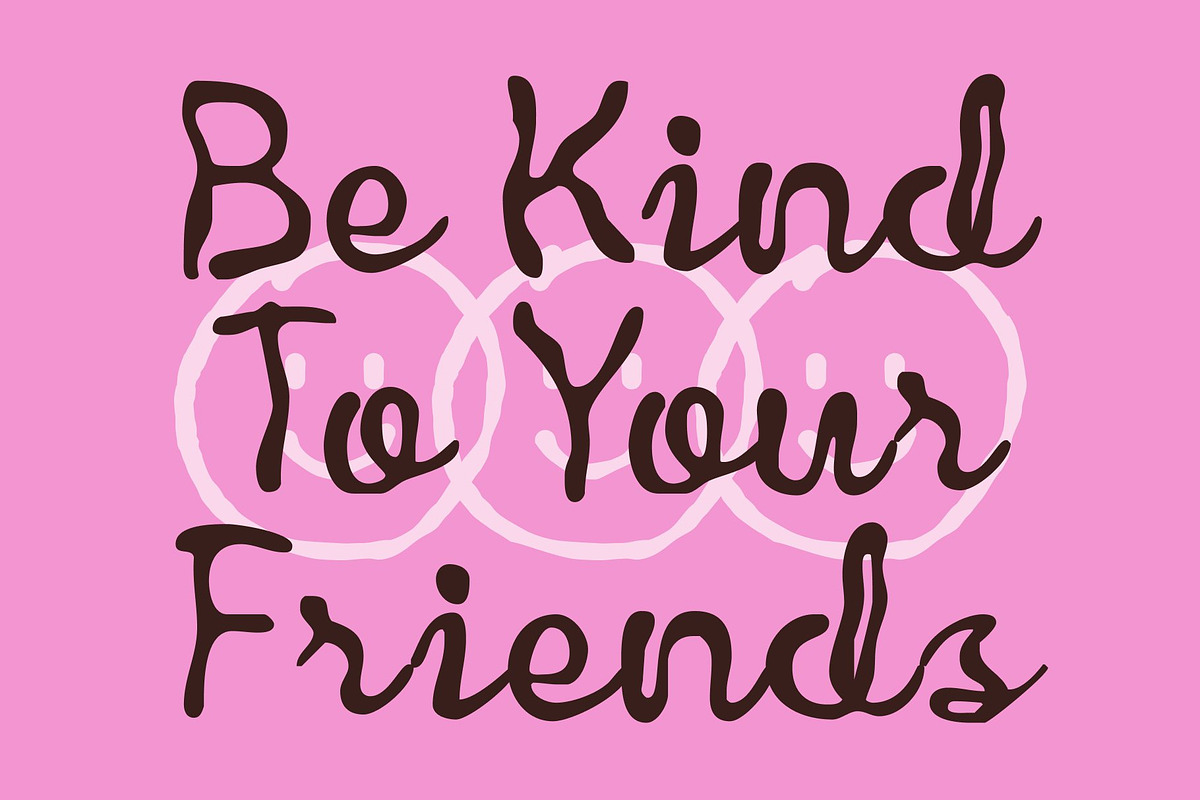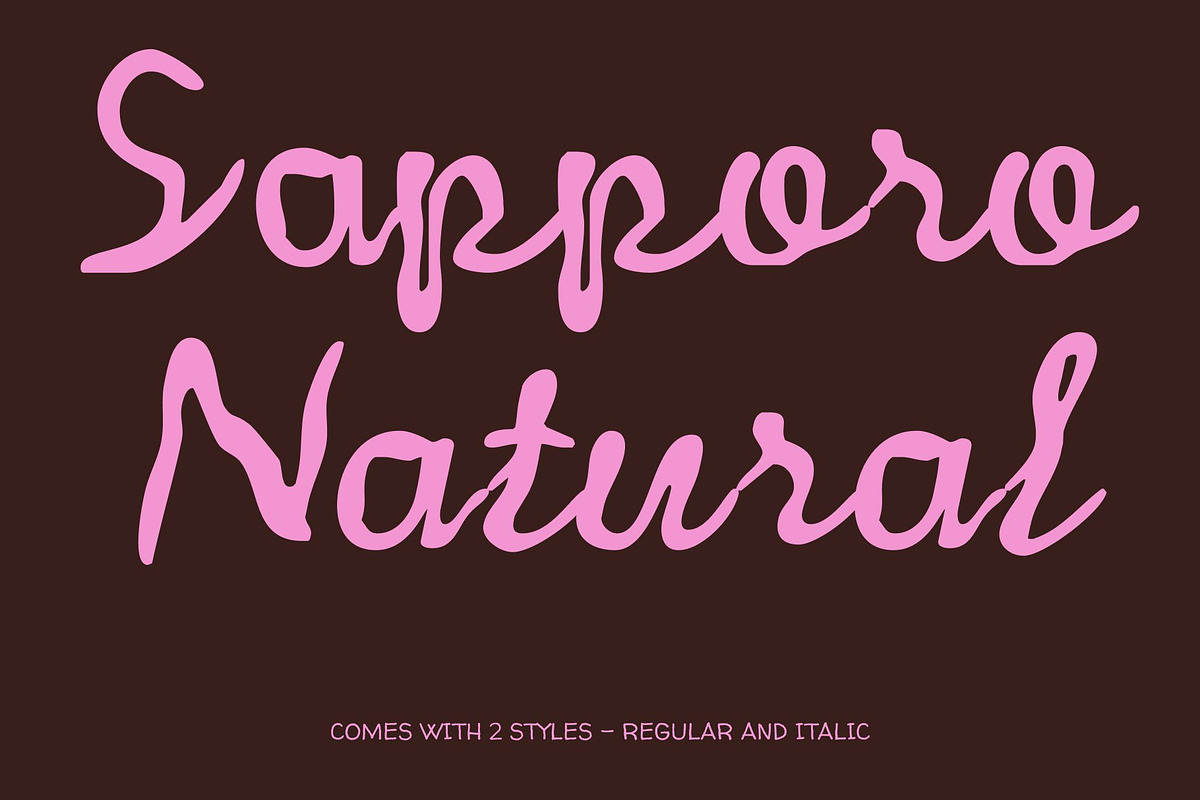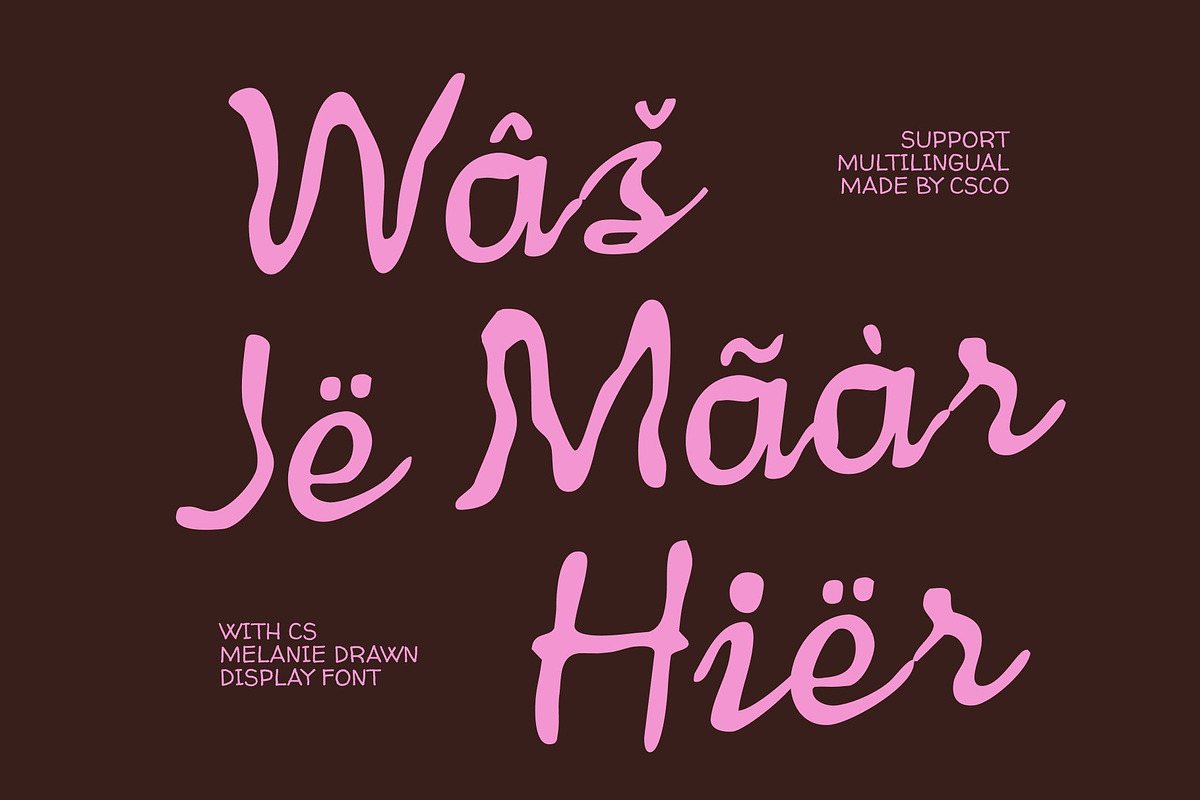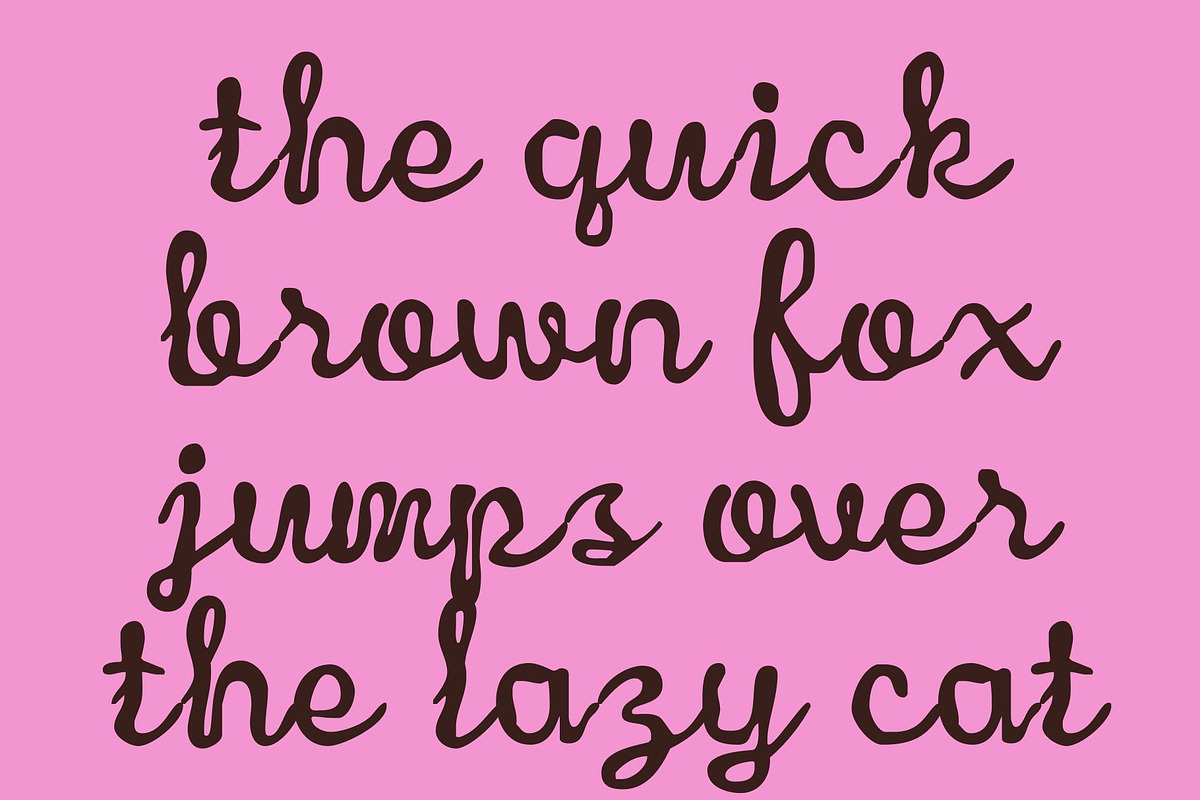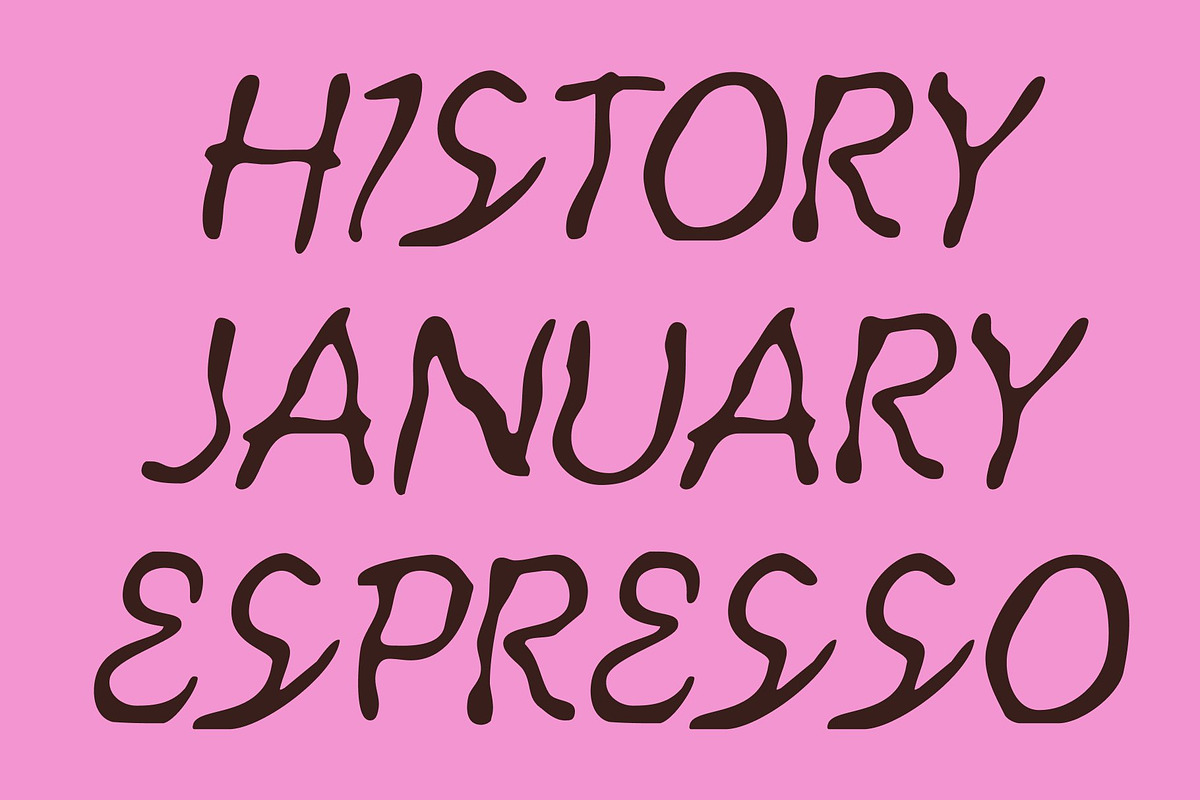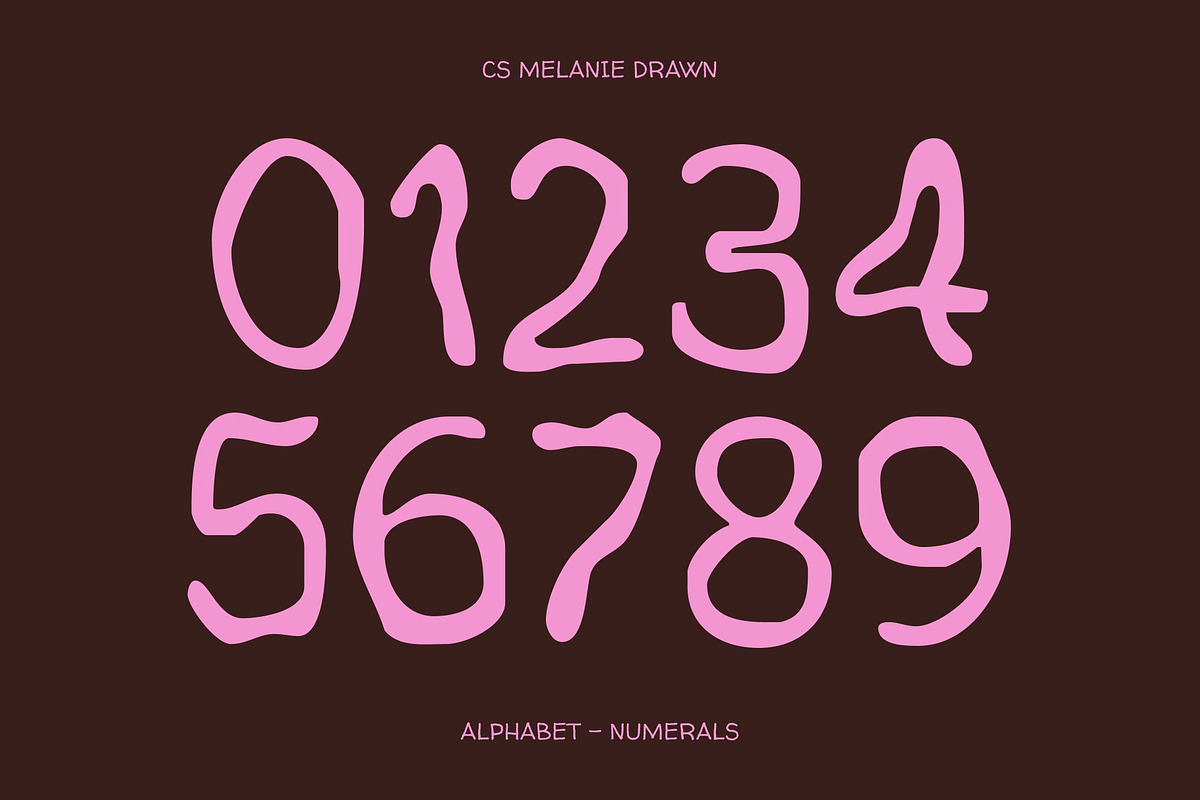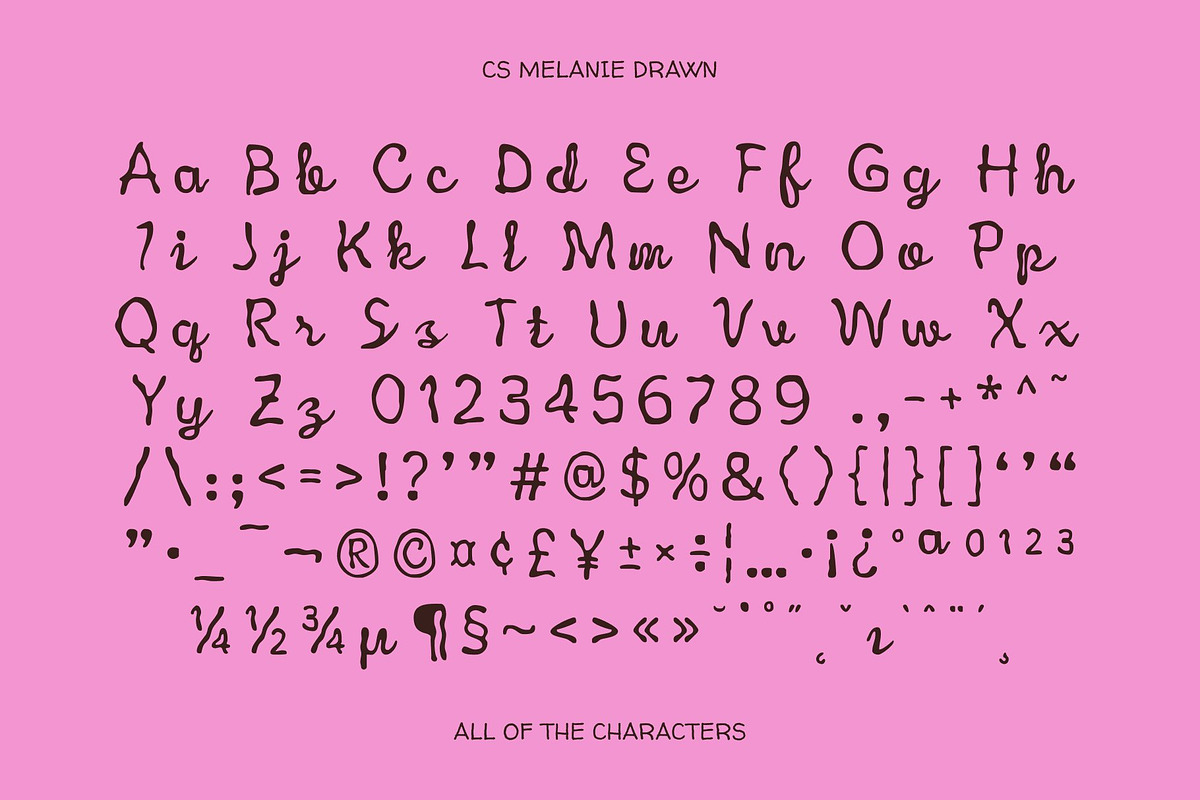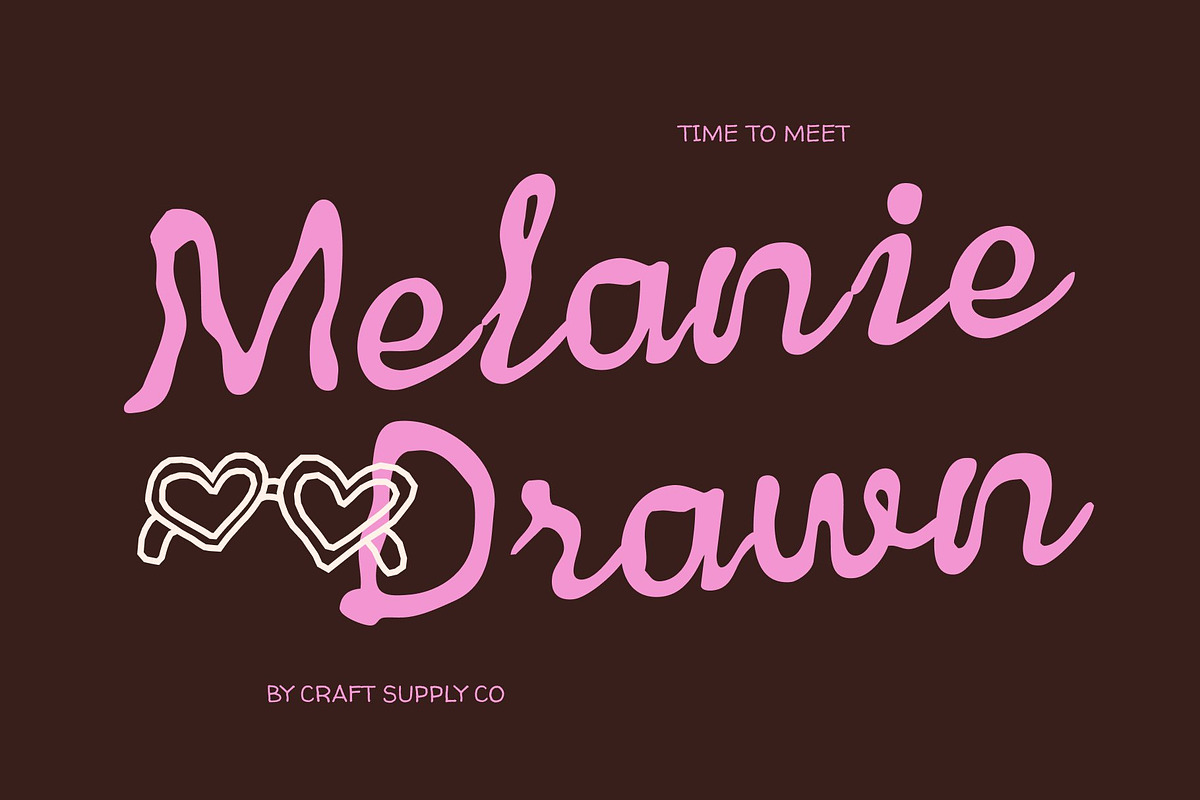
CS Melanie Drawn
CS Melanie Drawn – Etchy Font: Organic Elegance with Handcrafted Charm
Expressive Handwritten Style This is a display font featuring etchy, cursive, and handwritten letterforms that radiate organic beauty and personal expression. Each character flows naturally, capturing the spontaneity of hand lettering while maintaining graceful structure. Its delicate curves and expressive movement give every word a warm, intimate presence that feels authentic and artistic.
Textured Strokes with Artistic Flair The etched texture and natural strokes add a handcrafted character that sets this font apart. Subtle irregularities create depth and visual interest, giving the font an organic, human touch. Carefully balanced cursive lines ensure readability while enhancing the font’s artistic elegance, making it both decorative and functional.
Perfect for Feminine and Creative Designs This font is ideal for beauty branding, boutique logos, wedding invitations, lifestyle packaging, and social media graphics. Its soft, expressive forms convey femininity, charm, and creativity, making designs feel refined, emotional, and uniquely personal.
Versatile for Stylish Applications From packaging and event materials to editorial layouts and digital content, this font adapts beautifully across platforms. Whether used as a statement display or a complementary handwritten accent, it delivers organic elegance with timeless handcrafted appeal.